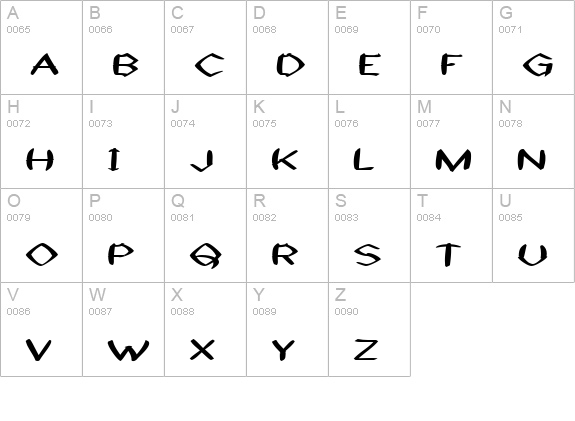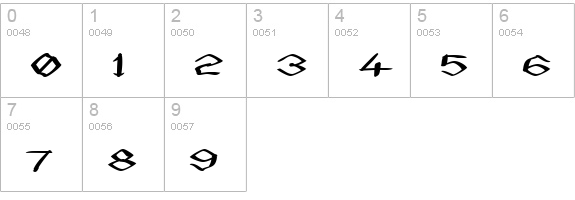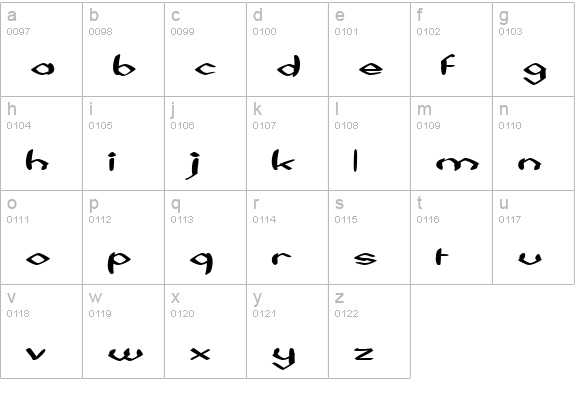
Black Sheaf is a maximum-weight, dramatic variant in the Black typeface family \xE2\x80\x94 well suited to maximum-impact headlines, posters, and packaging.
The Black Sheaf font is a bold and stylish typeface that exudes sophistication and elegance. Its sharp serifs and sleek lines make it a versatile choice for a wide range of design projects, from branding to editorial layouts. This font commands attention and adds a touch of class to any text it graces. What's even better is that the Black Sheaf font is completely free to download at FontsMarket.com. This means you can bring a touch of luxury to your designs without breaking the bank. Don't miss out on the opportunity to elevate your projects with this stunning font that is just a click away.